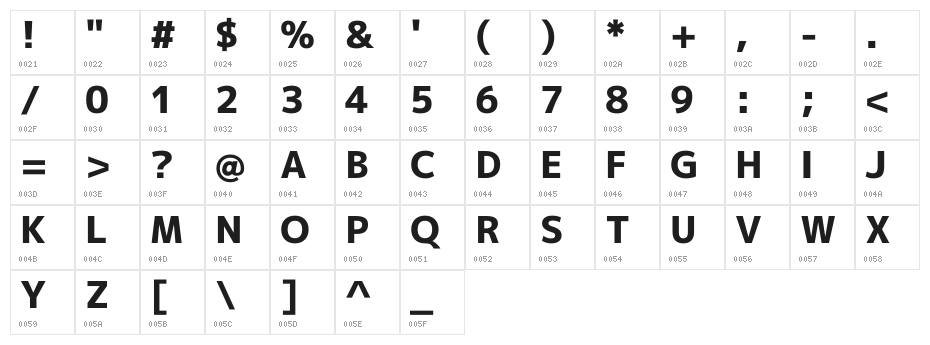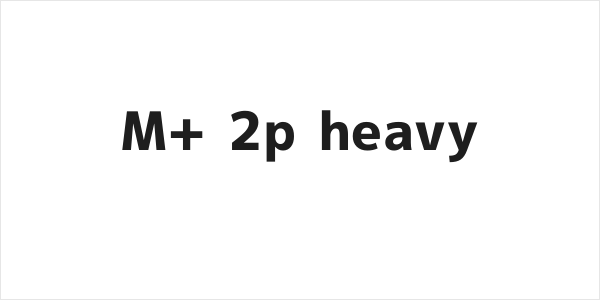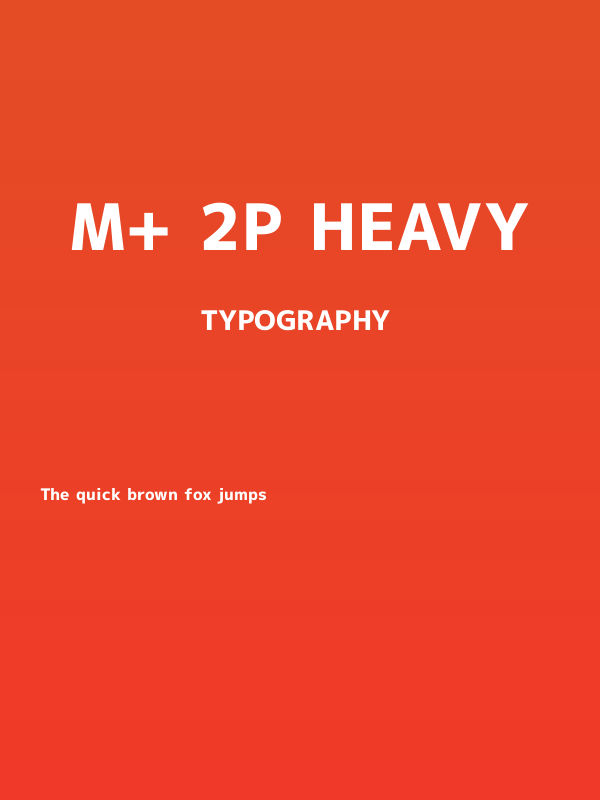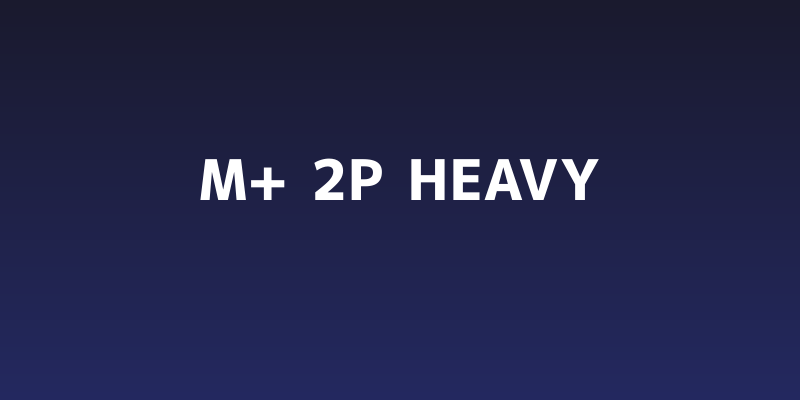
M+ 2p heavy Font
M+ 2p heavy Description
This font features a bold and robust design with clean, straight lines and a modern aesthetic. The uppercase and lowercase letters are well-proportioned, with a consistent stroke width that conveys strength and clarity. The numerals are clear and easy to read, making them suitable for a variety of applications. Special characters are included, maintaining the same bold style, ensuring versatility in design projects. The overall appearance is professional and contemporary, making it ideal for impactful headlines and branding.
| Proposed Projects | Ideal for branding, advertising, headlines, and signage where a strong, modern impression is needed. |